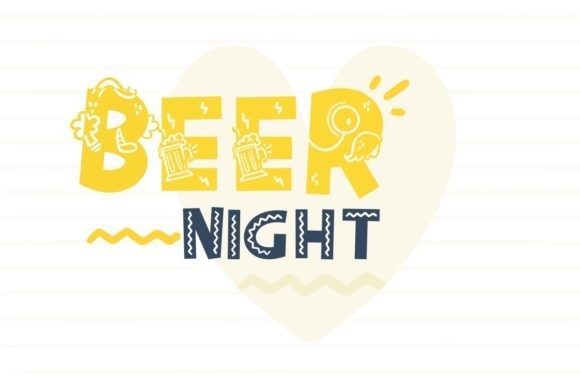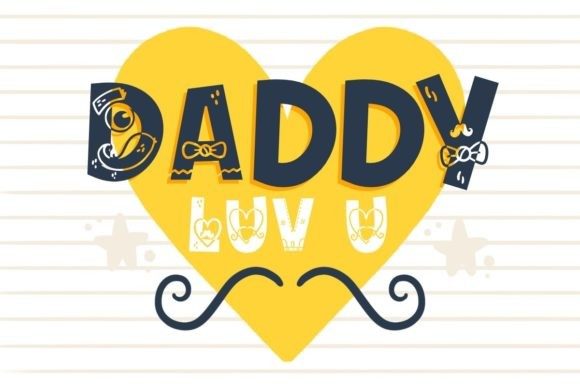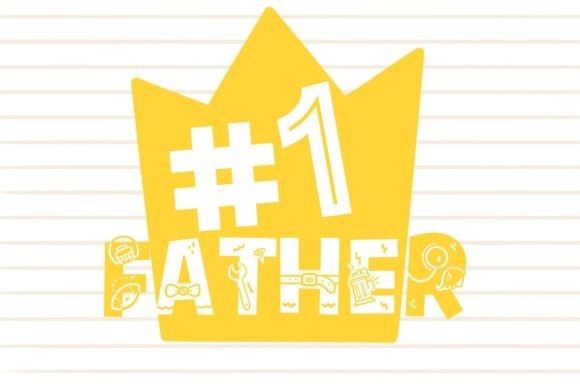
Introduction to Oh Dad Font
Oh Dad is a playful, decorative font where some glyphs are accessorized with an element that reminds us of our Dad’s, for example, a belt, bow tie, monocle, and a mustache.
This is the perfect font to use for your Dad’s birthday card or father’s day presents .
Key Features of Oh Dad Font
Why Choose Oh Dad Font?